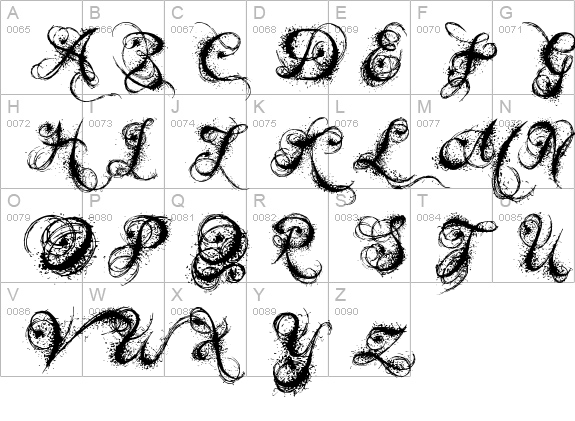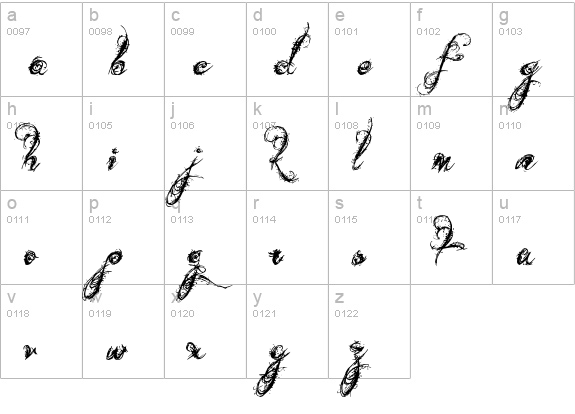
Dirt Bag Font Details
Dirt Bag font is an edgy and grungy typeface that exudes a raw and rebellious energy. With its rugged appearance and distressed texture, this font is perfect for adding a touch of urban grit to your designs. The letters of Dirt Bag font are adorned with jagged edges, giving them a hand-drawn feel that captures the essence of urban street art. Each character has a unique and weathered look, as if it has been through the trials and tribulations of the cityscape. This font is versatile and can be used for a variety of purposes, from creating bold headlines to designing eye-catching logos. Its rough and worn-out aesthetic adds an element of authenticity and character, making it stand out in a sea of generic typefaces. What makes Dirt Bag font even more appealing is that it is available for free download at FontsMarket.com. This means that you can easily get your hands on this incredible font without spending a dime. Whether you're a professional designer or a hobbyist looking to add a touch of urban flair to your projects, Dirt Bag font is the perfect choice. So go ahead and elevate your designs with the gritty charm of Dirt Bag font. Download it now for free at FontsMarket.com and let your creativity run wild.